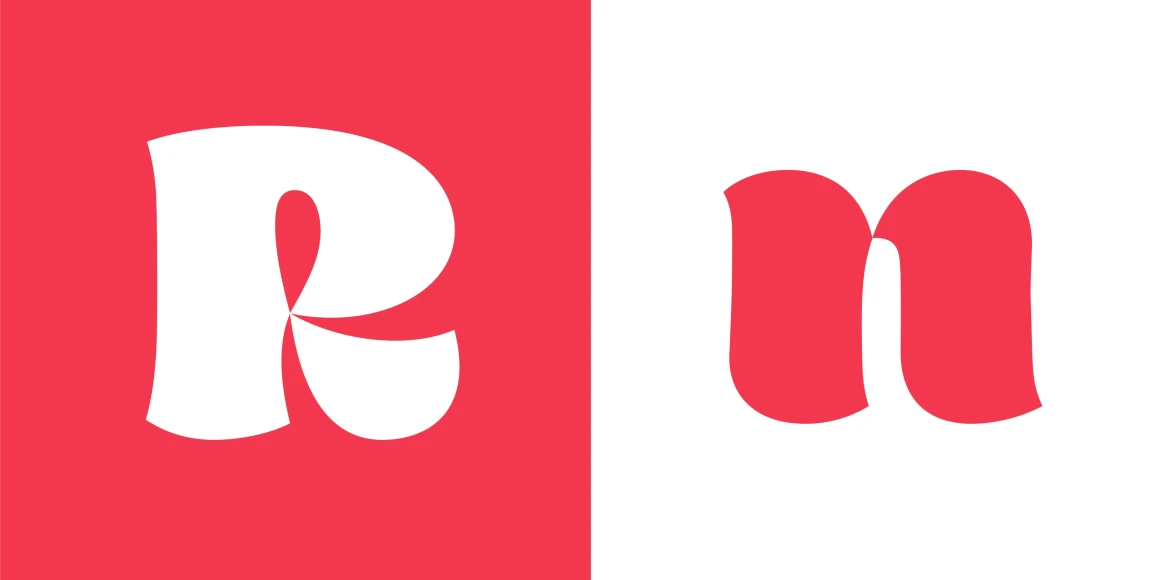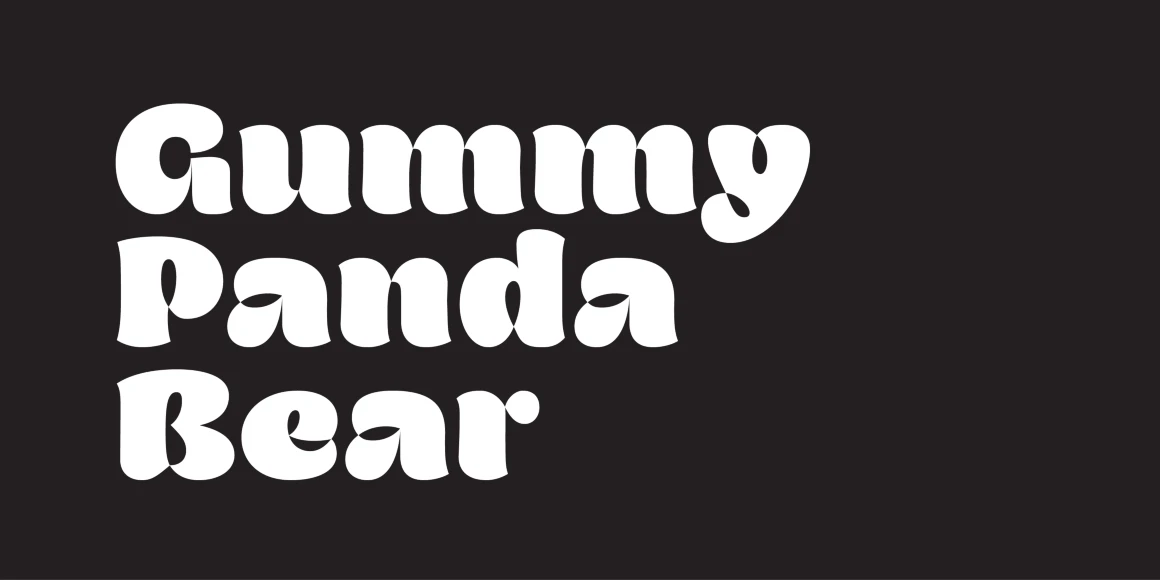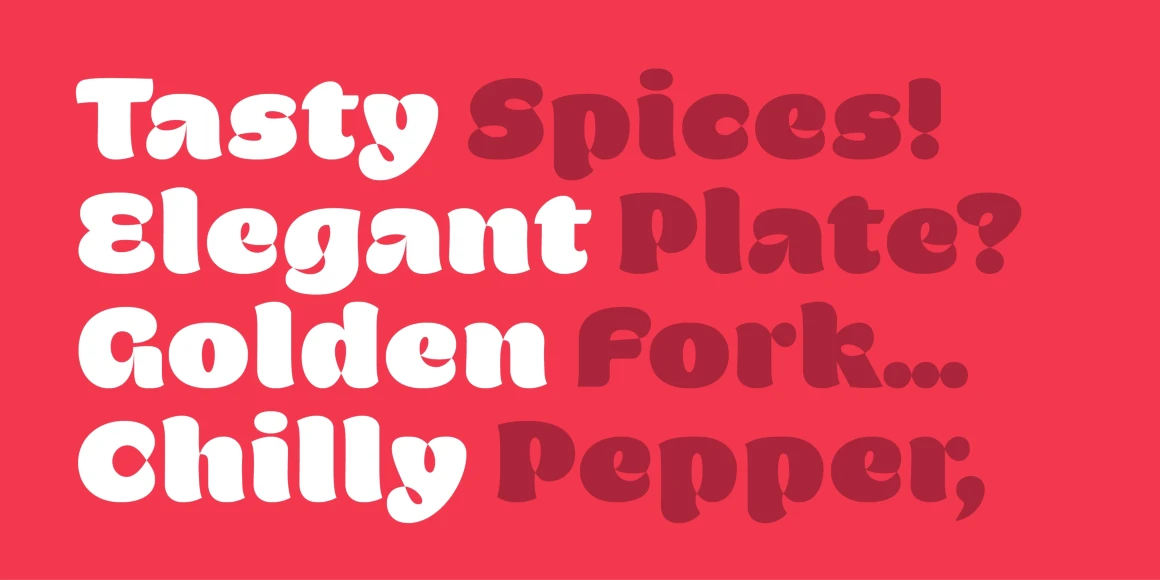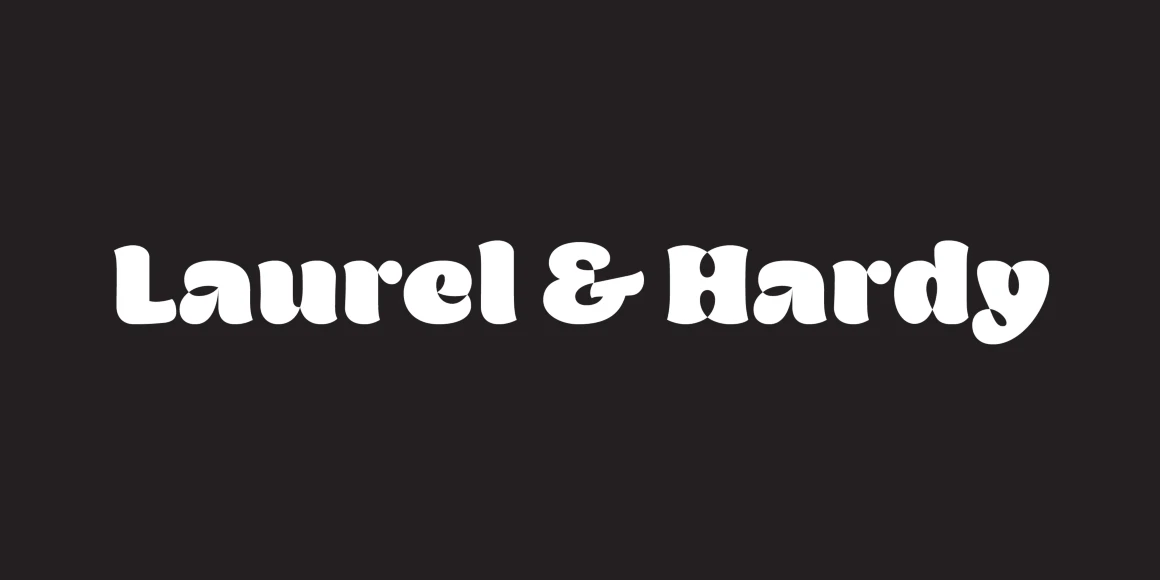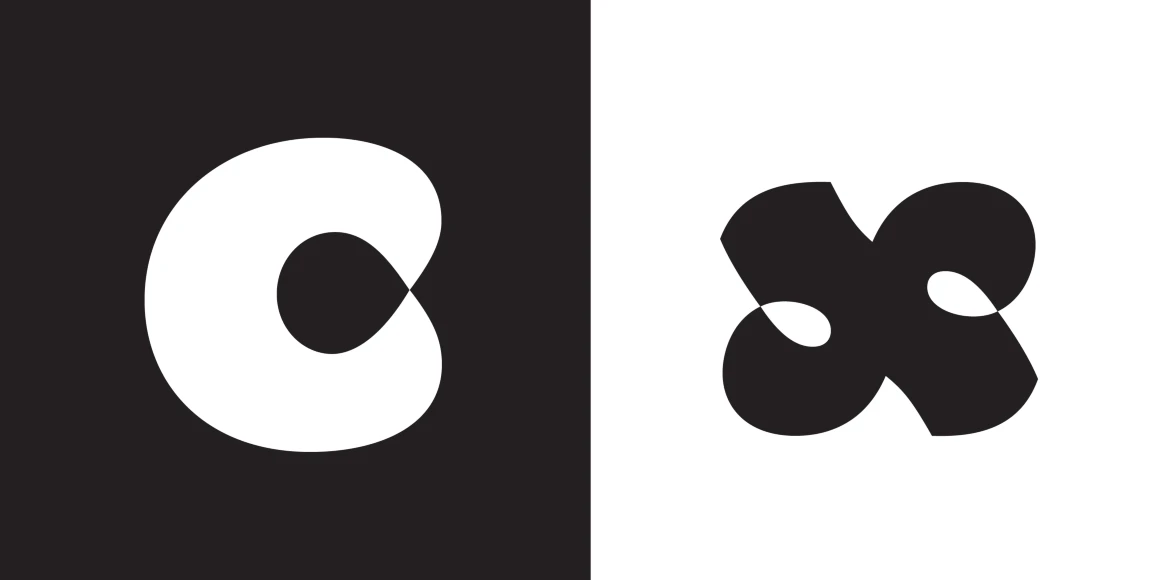
Opake
By Natanael Gama
Opake Heavy
Opake is an experimental typeface design that steps away from regular design conventions. Instead of basing the design on a calligraphic tool or geometric shapes, Opake is the result of the exercise of creating letters with a single continuous loop line. This unseen technique makes the overall design very unique. Though unconventional, the design resonates with some familiarity because of its calligraphic stroke terminations and some shape decisions that might resemble Cooper Black. In the end Opake is a cutting edge non-connecting script font, with a warm and happy feeling. Ideal for large headlines and general display use, but also branding, posters and apparel. If you like unconventional solutions and edgy design, Opake is the font to go for.